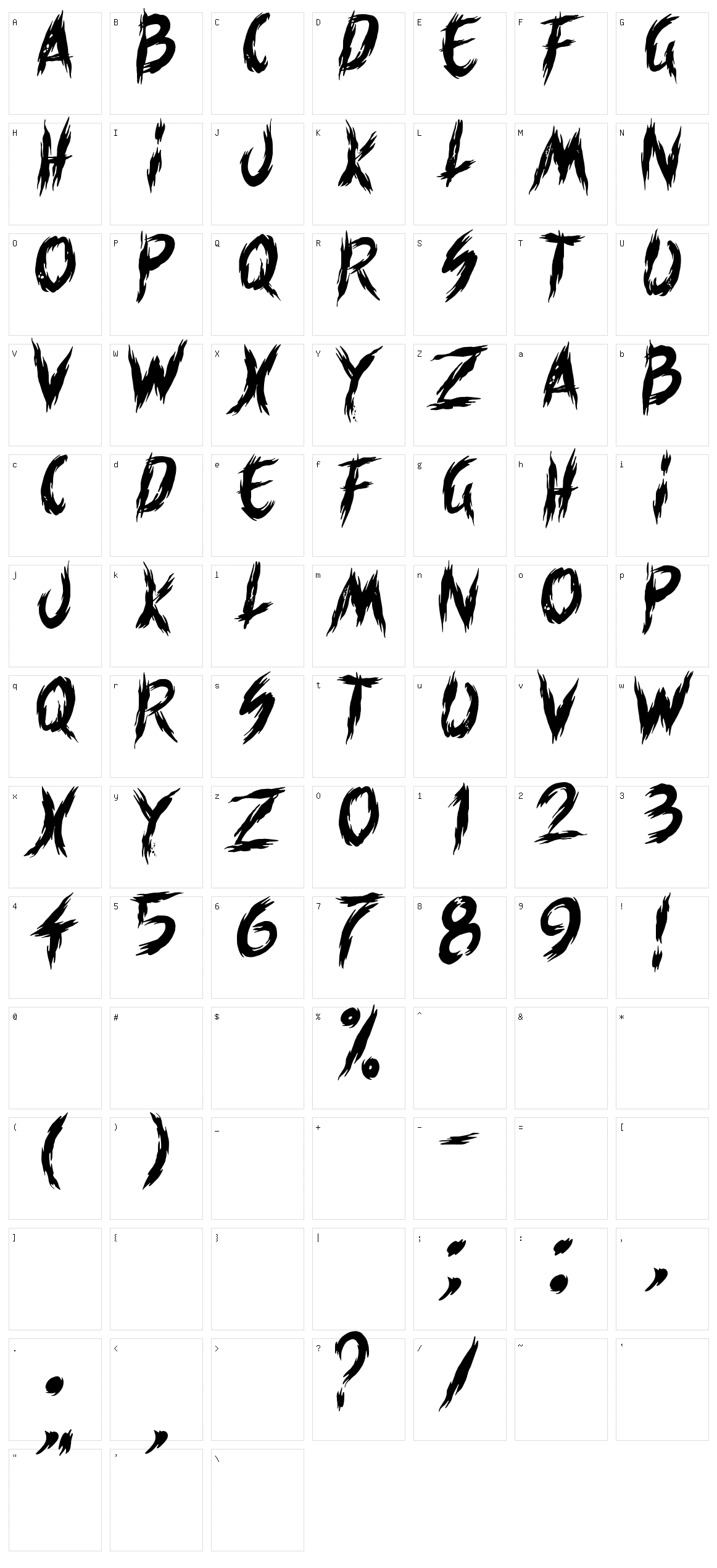
The free font Slayer movie is carefully designed by imagex, showcasing a thoughtful balance of creativity and usability and falls under the Horror font style. When you download the ZIP file, it contains only 26.89 KB of font files, making it lightweight and quick to download. Please review the license details below to understand permitted usage and distribution rights. If license information is not available, we recommend using this font for personal projects only or contacting the author directly for commercial usage permissions.